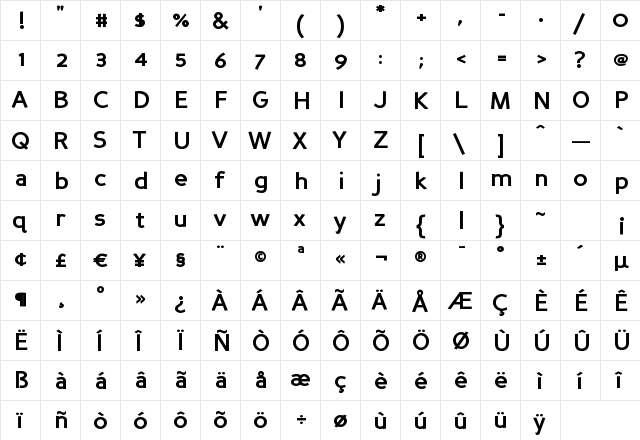
Perspective Sans Bold
Design Context for Perspective Sans Typeface
Perspective Sans offers clean, dependable letterforms without strong stylistic allegiance, making it a practical choice for designers who need flexibility. The heavy weight commands attention and anchors typographic hierarchies.
Pro Tip: Use Perspective Sans in both headline and body roles to test its range before committing to a single application.